Thanksgiving Font Ideas for Hosts and Crafters: 13 Styles for Happy Thanksgiving Cards, Place Cards and Cricut Shirts
A Thanksgiving font has to do more than look festive. It has to fit on a place card, read clearly on a menu and hold up on a shirt or a banner. This list covers all three: handwritten fonts for names and notes, bold display fonts for titles, and doodle and color alphabets for crafters.
Every font here was picked from Creative Fabrica’s Thanksgiving fonts, and each one is shown with its own preview. One of them, Thanksgiving Font by Veil, is part of Creative Fabrica’s free font collection.
Handwritten Thanksgiving Fonts
Handwritten fonts for the words people write by hand on Thanksgiving: guest names on place cards, a short thank-you note, a menu on a chalkboard or a greeting on a card. They go from neat print to looping script, so match the style to how formal your table is.
1. Happy Thanksgiving Font
by Nun Sukhwan
Best For: greeting cards, place cards, handwritten menus
Happy Thanksgiving Font is a neat, upright handwriting with separate, rounded letters. The preview writes the name in burgundy and burnt orange on grid paper, with a long looping underline and a few painted leaves. The author suggests it for notes, greeting cards, banners, mugs, shirts and stationery.
Because the letters don’t connect, every word stays clear, even at place-card size. It is the safest choice here for guest names and menu lines, and it pairs well with any of the display fonts below for the title.
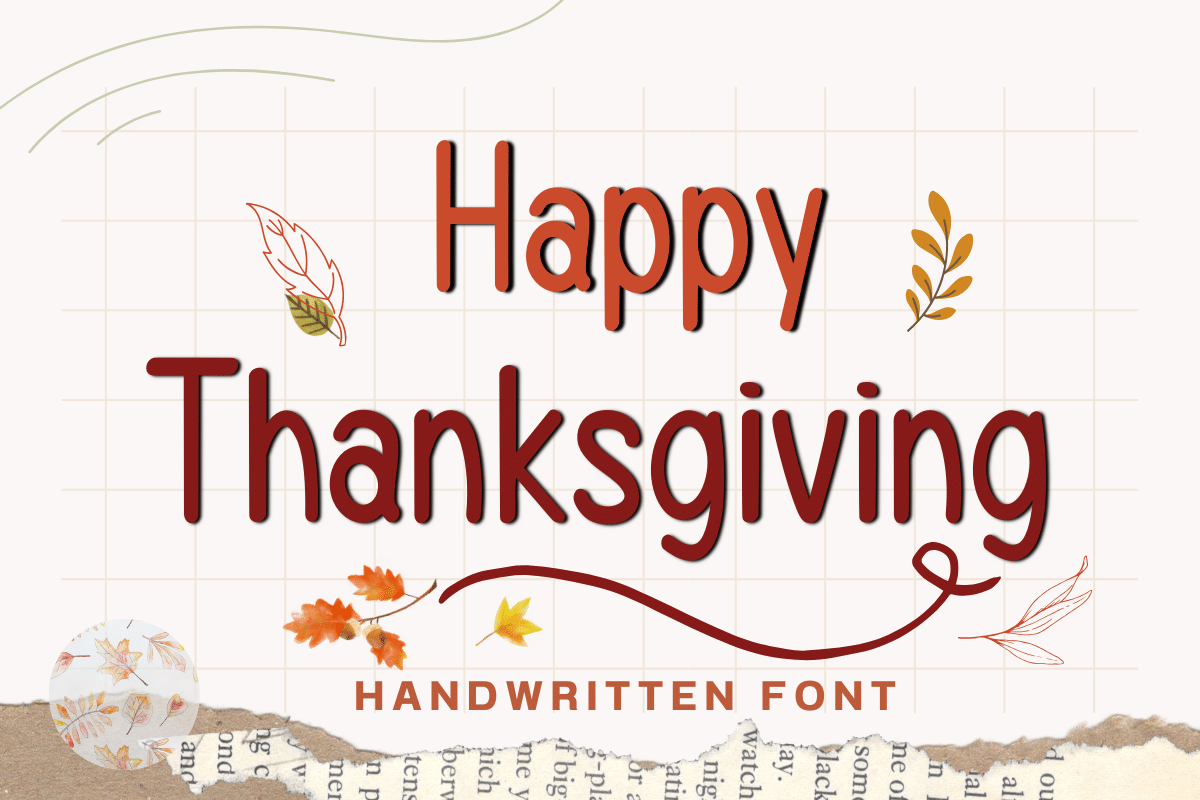
2. Warm Thanksgiving Font
by MVMET
Best For: Thanksgiving shirts, kids’ crafts, chalkboard signs
Warm Thanksgiving Font is a narrow, hand-drawn print with tall capitals and slightly uneven strokes. The preview sets it in cream on dark wood, between cut-paper pumpkins, acorns and leaves, with a lowercase line in the same style underneath. The author mentions t-shirts, kids’ book designs, greeting cards, stickers and posters.
The tall, narrow shapes fit a lot of words across a shirt or a banner without shrinking. Light letters on a dark background, as in the preview, give it a chalkboard feel that suits café menus and classroom signs.
3. Special Thanksgiving Font
by Minimalist Eyes
Best For: kids’ invitations, classroom printables, cute social posts
Special Thanksgiving Font is a rounded, monoline handwriting set in lowercase, with soft curves and open shapes. The preview writes “special thanksgiving” in dark grey on a white brush stroke with small purple stars. The author calls it a cute handwritten display font for children’s books, invitations and branding.
It reads young and friendly, so it fits school newsletters, kids’ table activity sheets and playful Instagram posts. The even stroke weight also makes it easy to cut on vinyl.
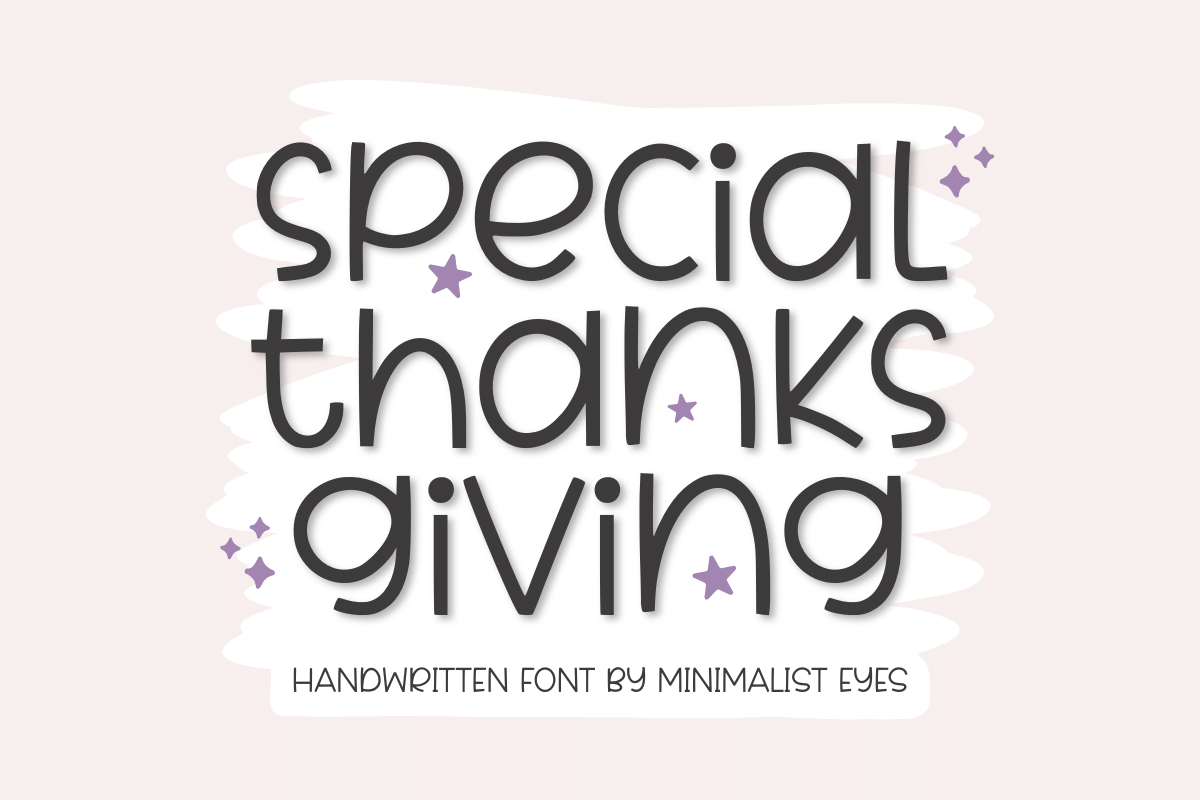
4. Remember Thanksgiving Font
by Inermedia STUDIO
Best For: greeting cards, gift tags, framed quotes
Remember Thanksgiving Font is a bold, connected script with round loops and a steady slant. The preview sets it in black over a soft watercolor scene of a barn and wheat. The author suggests it for greeting cards, gift tags and holiday projects, and notes that the font is PUA encoded, so its extra glyphs and ligatures are easy to reach.
This is the heaviest script in the list, and that weight keeps it readable on kraft tags and photo backgrounds. Use it for one or two words, like “Give Thanks” or a family name, and let a simple print carry the rest.
5. Family Thanksgiving Font
by Roronoa zoro.S.P.D
Best For: elegant place cards, farmhouse labels, dinner invitations
Family Thanksgiving Font is a thin monoline script with tall capitals and long, sprawling loops. In the preview the F and T sweep far past the other letters, set in black over a soft frame of maple leaves and corn. The author describes airy, hand-drawn letterforms for farmhouse brands, kitchenware logos and autumn packaging.
It is the most elegant option in this group. Give it space and size, and it works well for a formal dinner invitation or a name card on a white plate. At small sizes or on busy backgrounds the thin line starts to fade.
Start With the Place Cards
If you are not sure where to begin, set one guest name in two or three fonts from this list and print it at place-card size. The one that still reads well from across the table is your Thanksgiving font. Use it for the names, add a bolder display font for the menu title, and the whole table will look like one set.